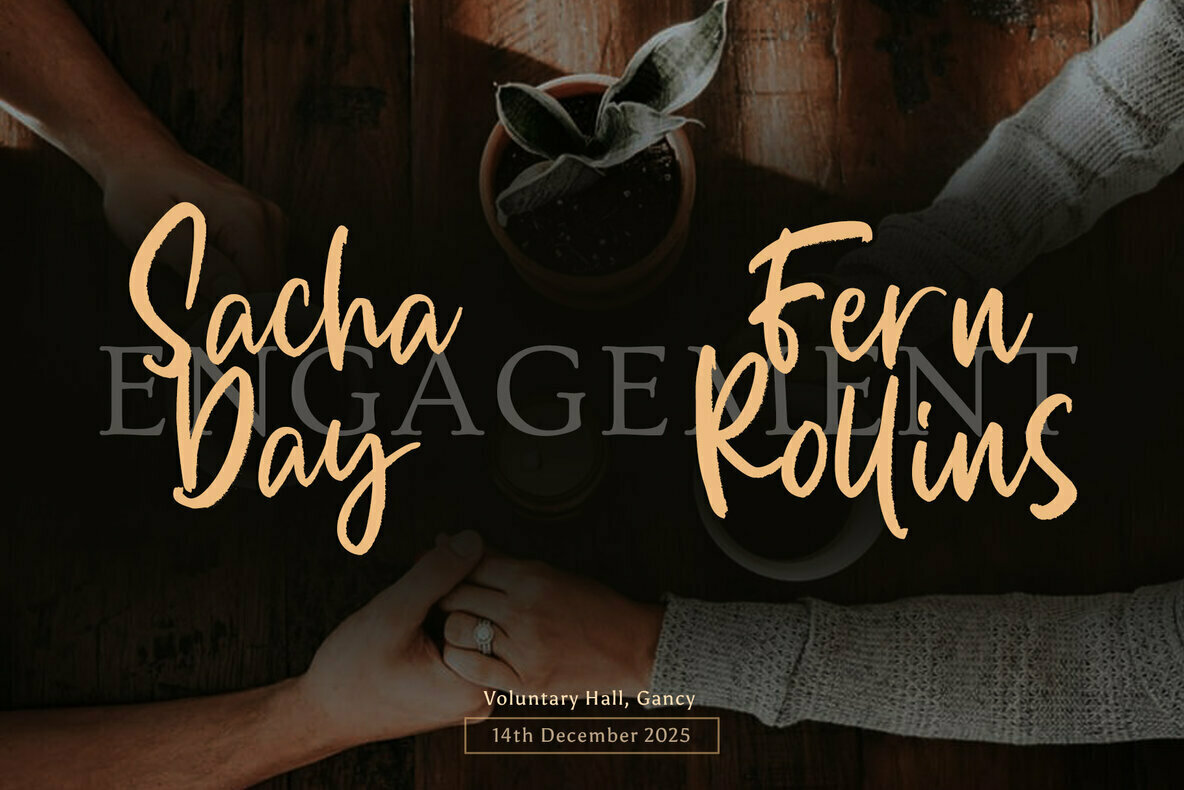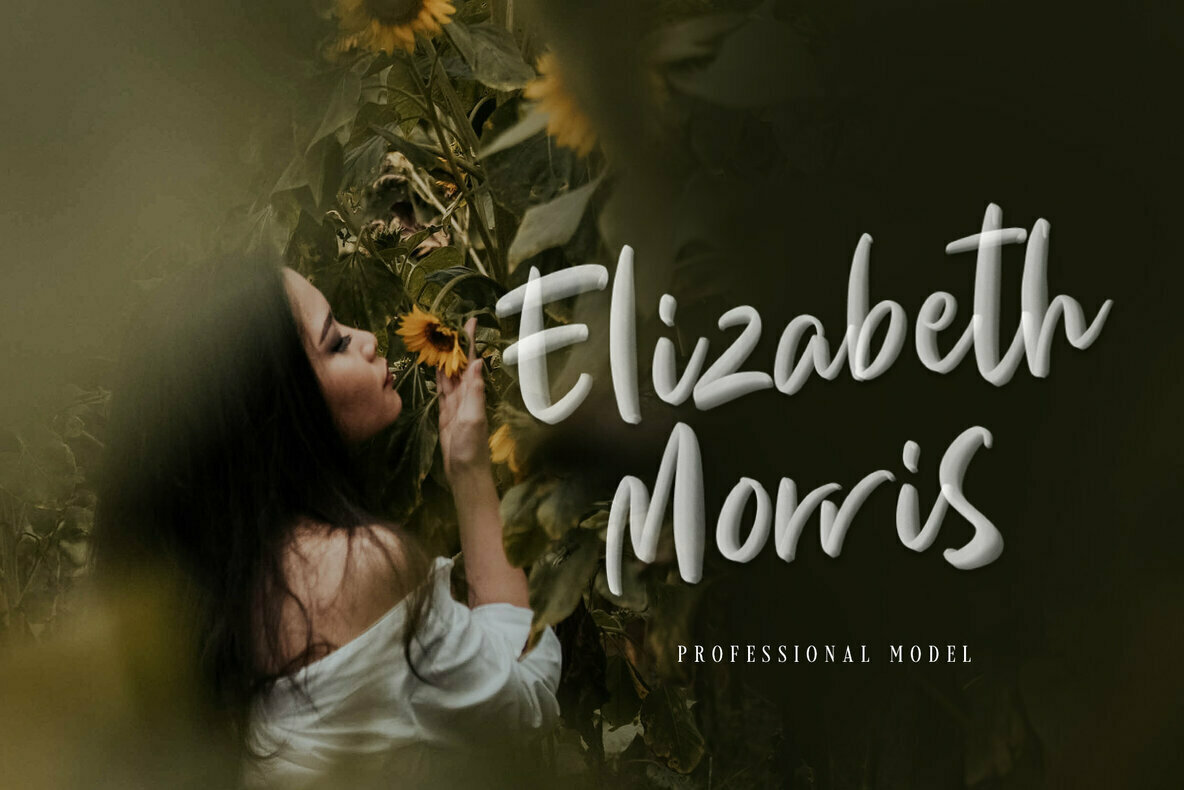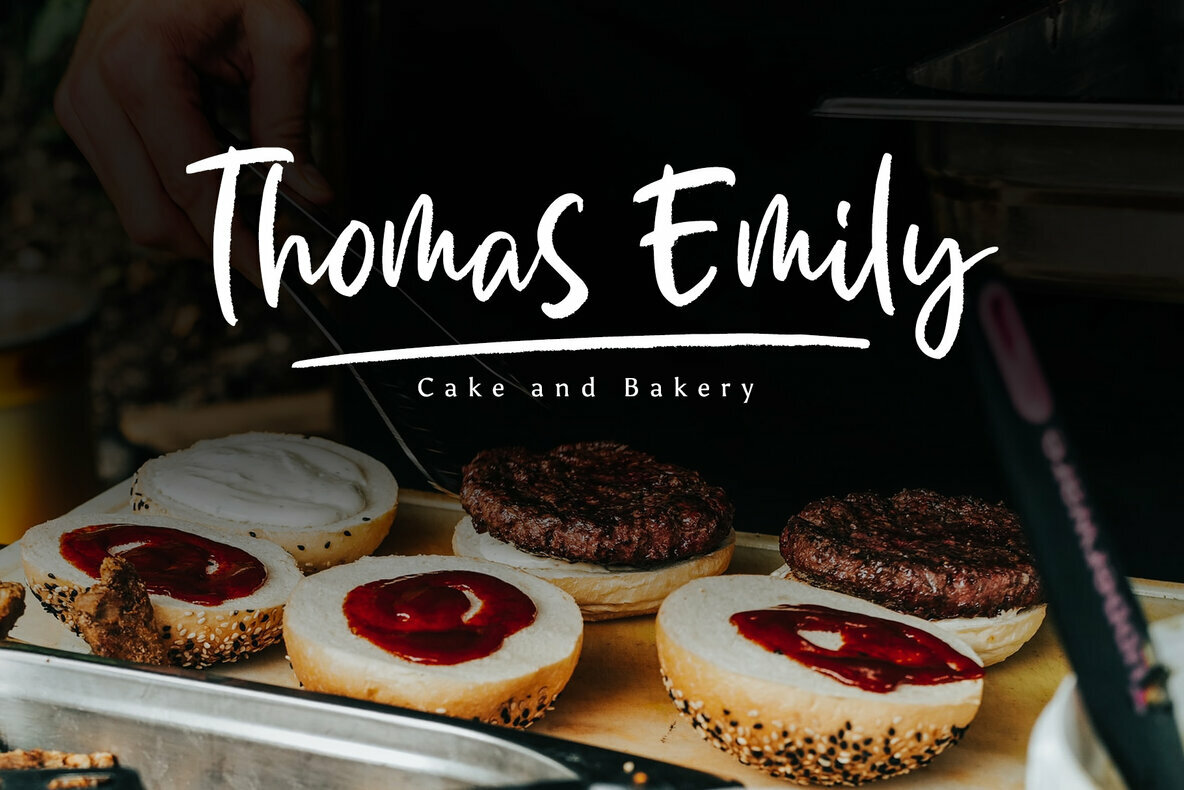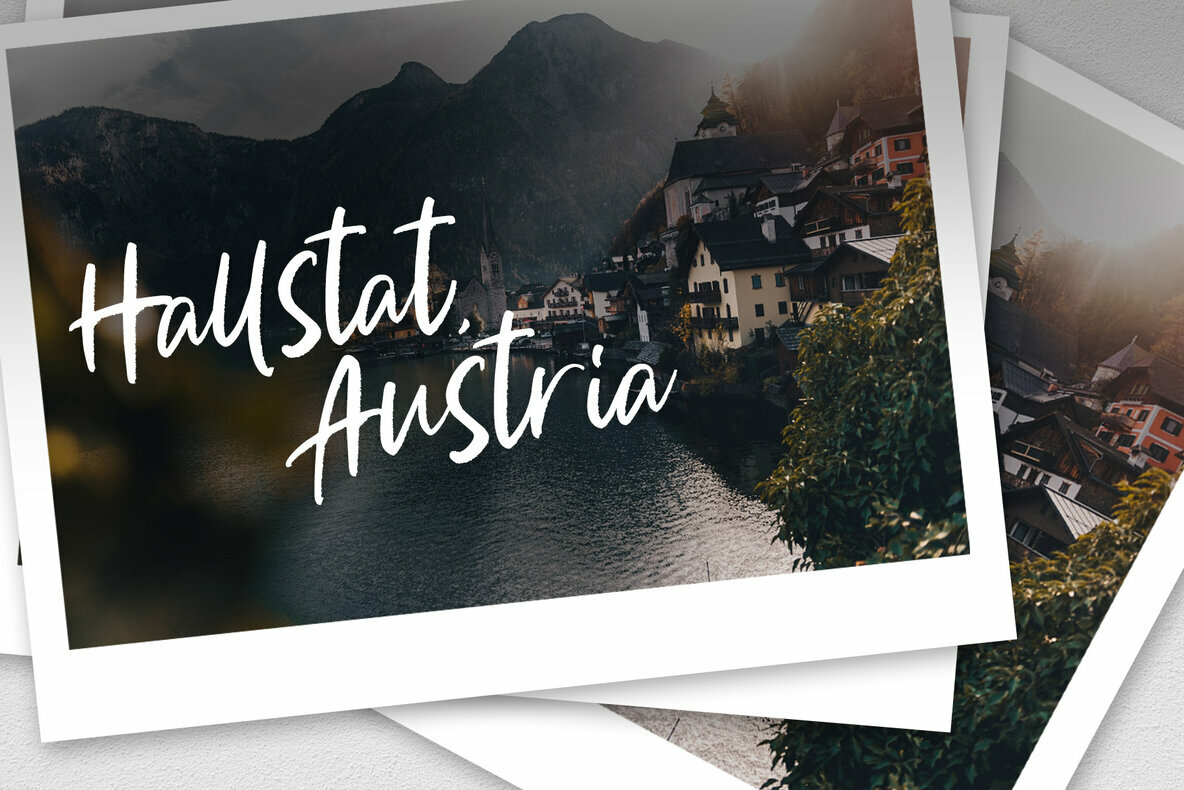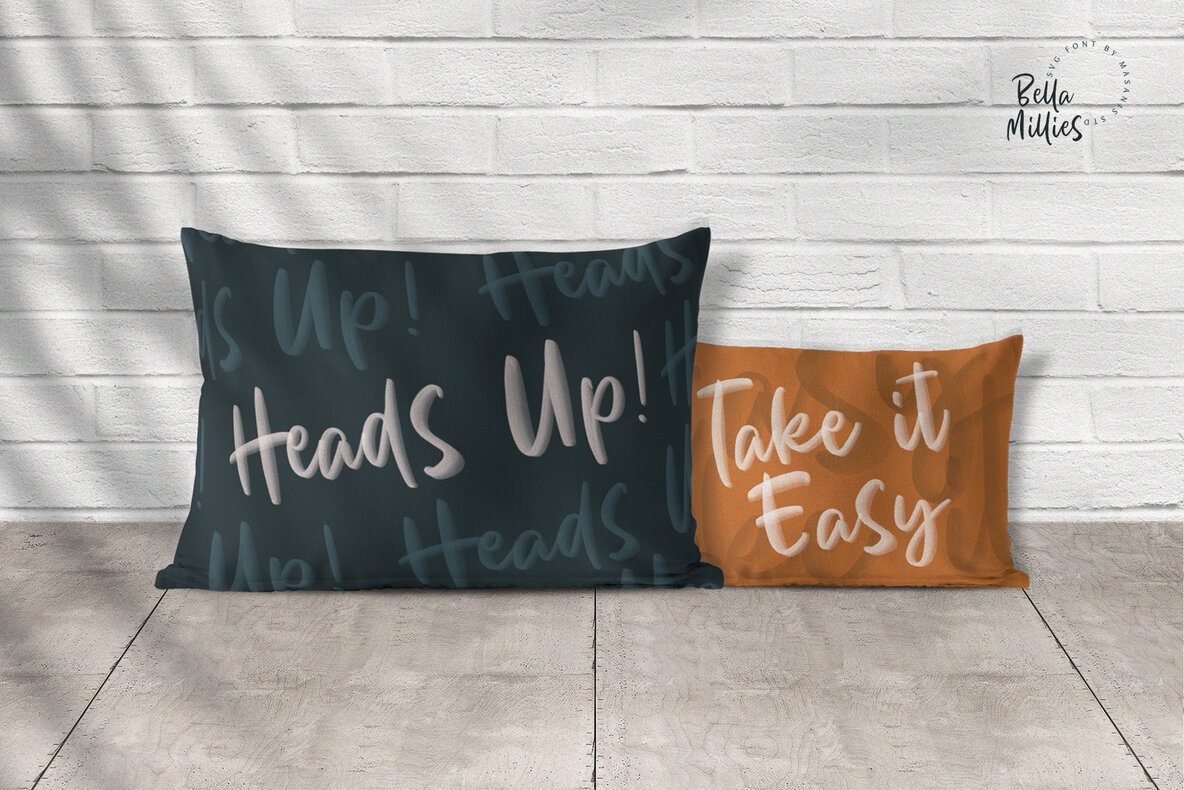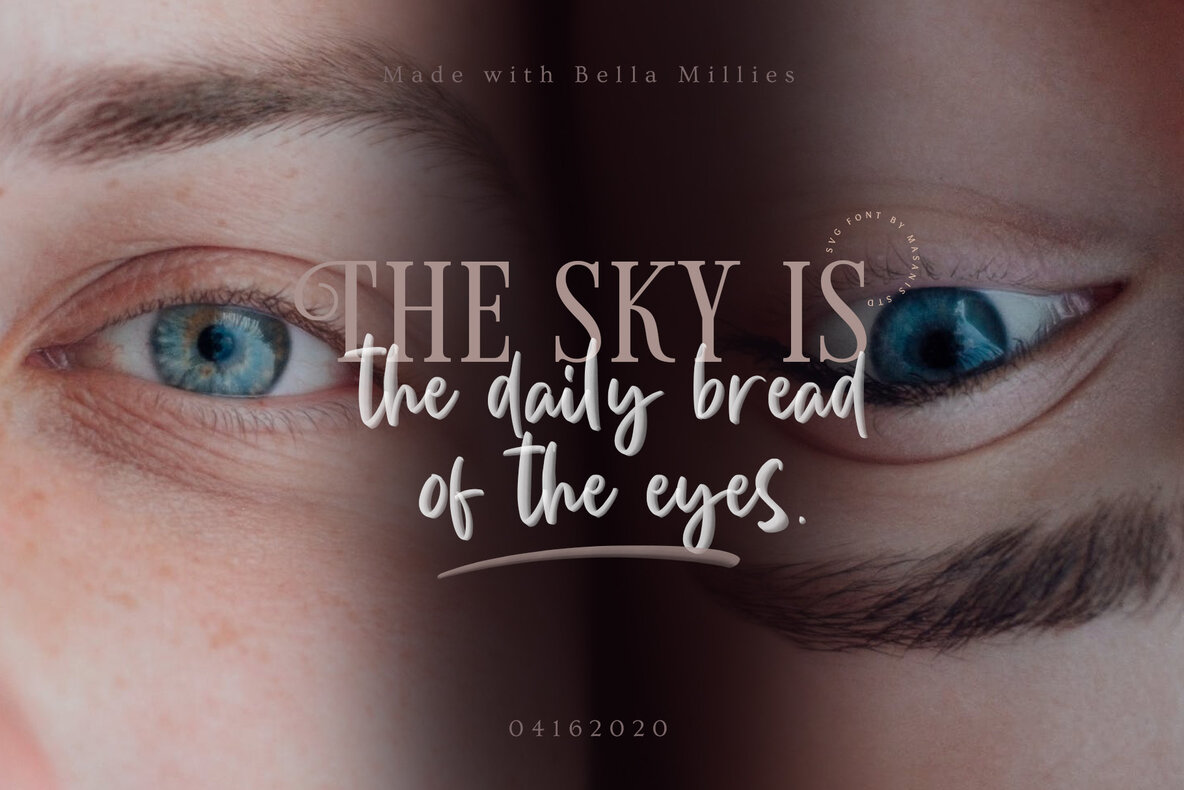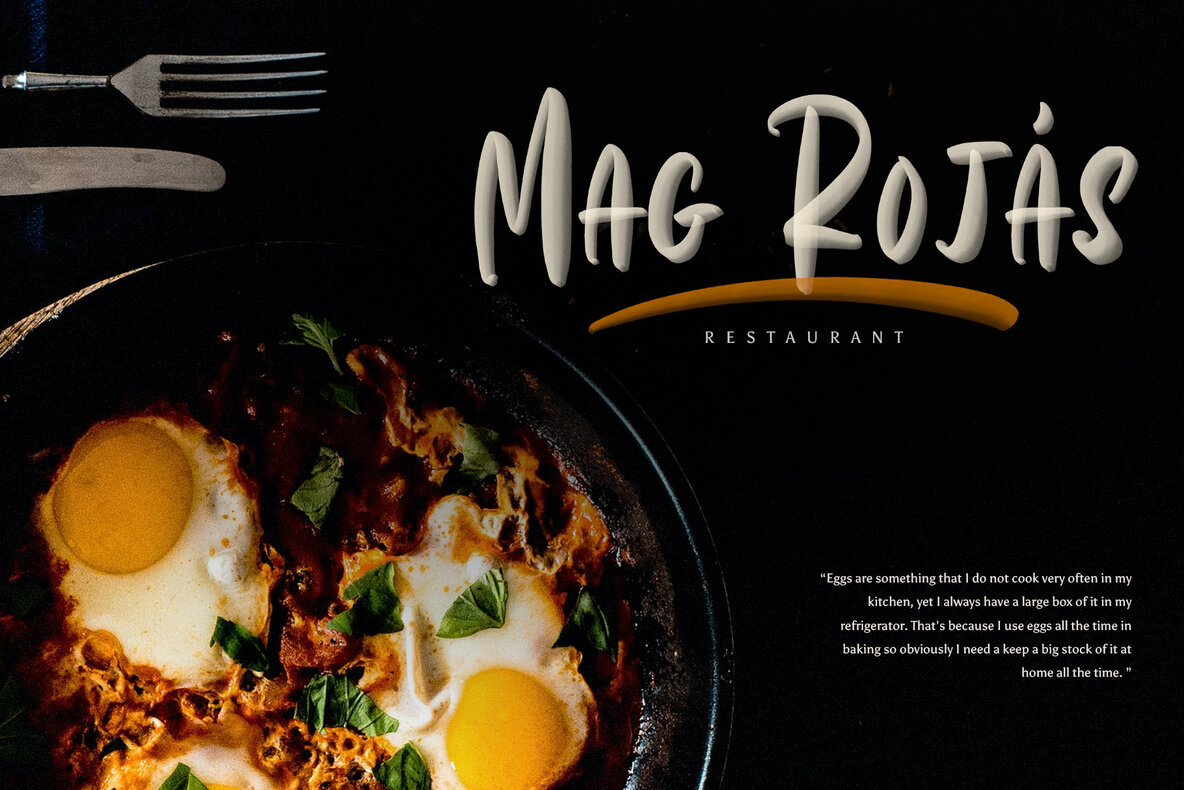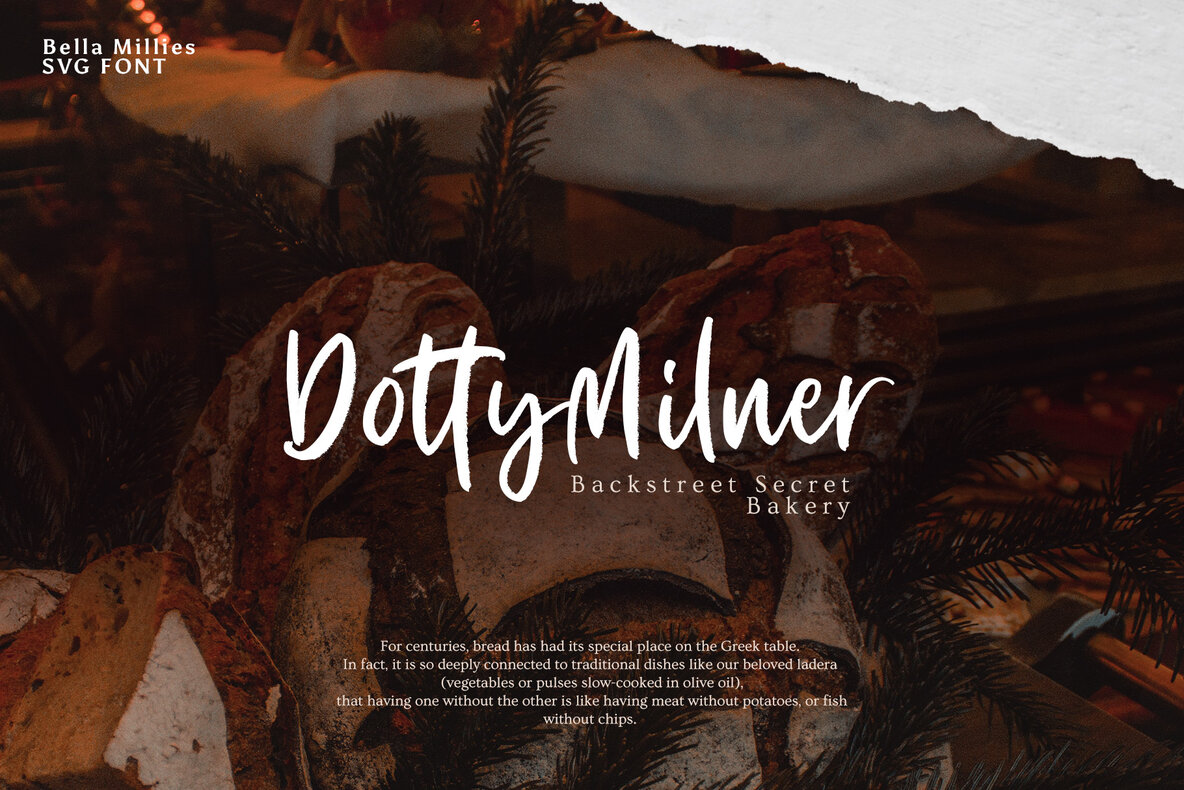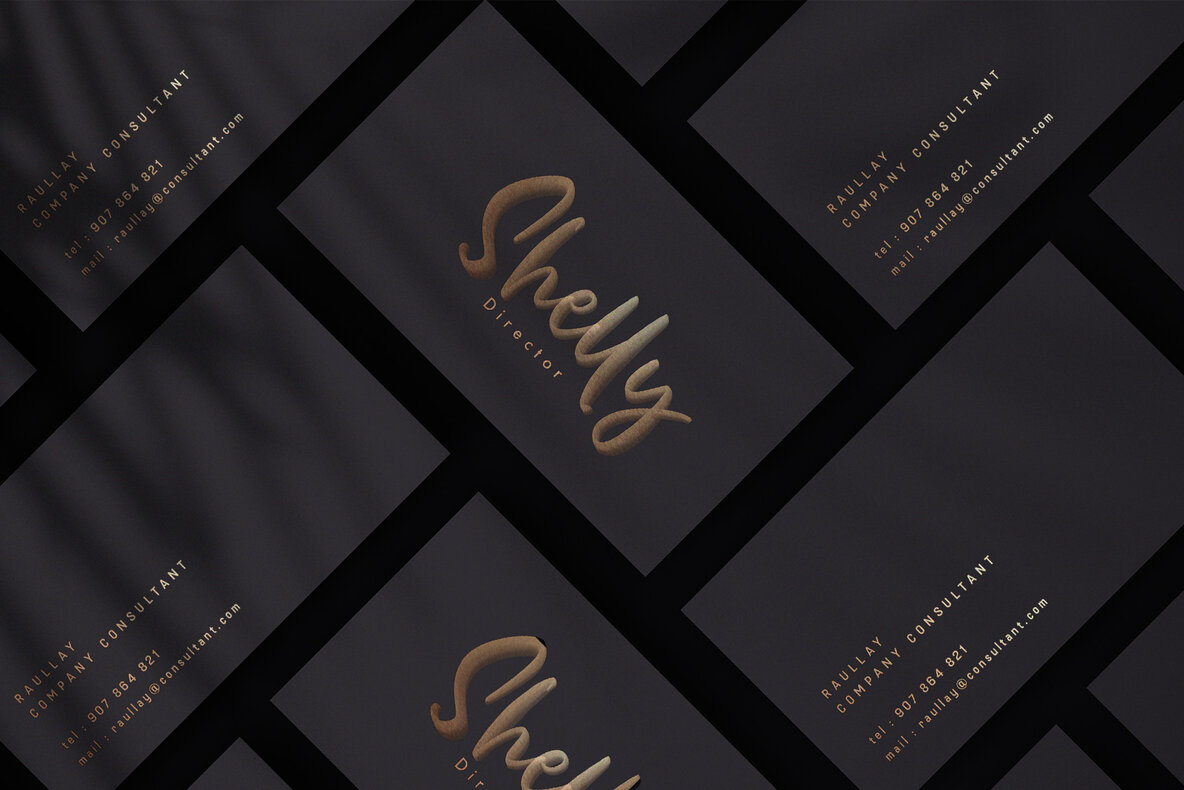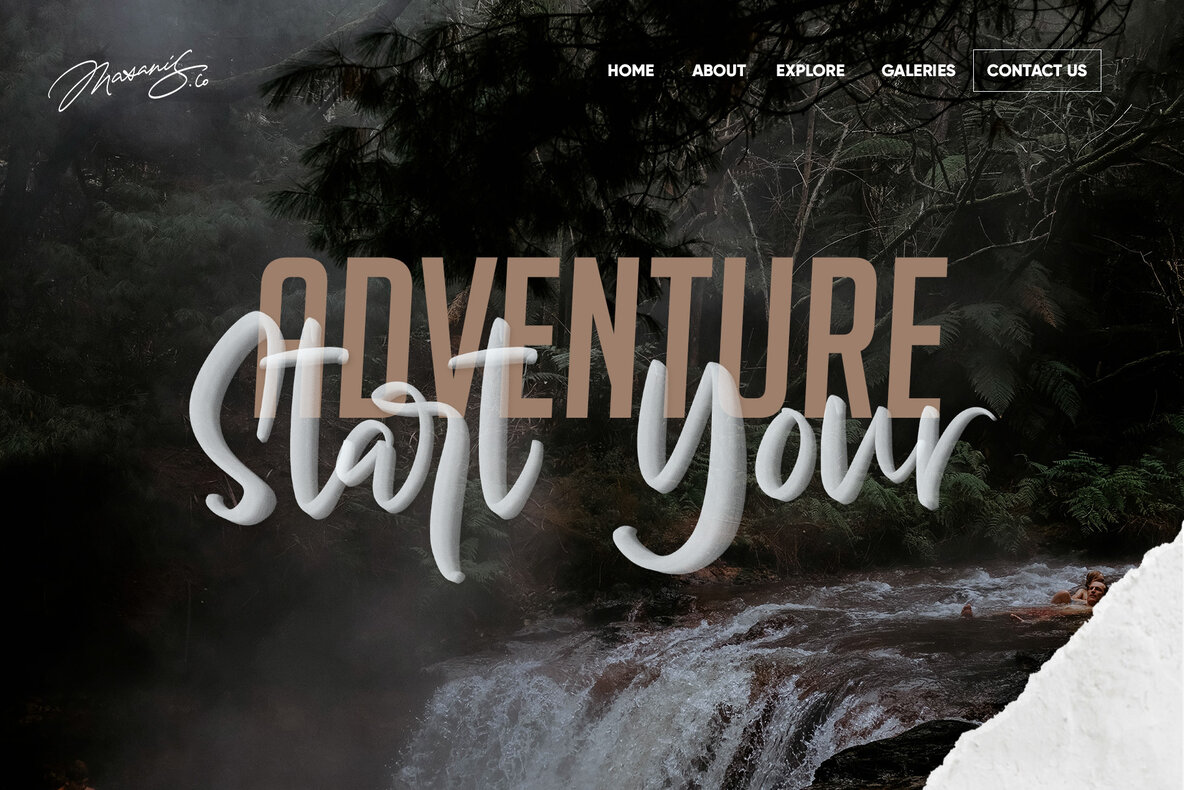
Bella Millies SVG Font
Bella Millies is an SVG font designed with a realistic hand-lettered sharpie look. This design approach makes it the perfect fit for signature logos, printed quotes, wedding invitation cards, social media headers, product packaging, and a lot more!
The OpenSVG technology is unique because it allows us to have so much more detail & transparency in the letters, which can give your text a realistic hand-painted look.